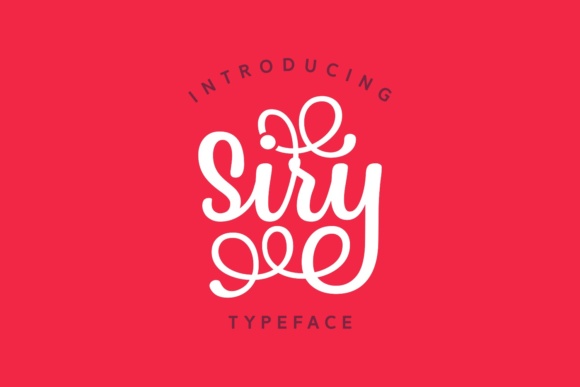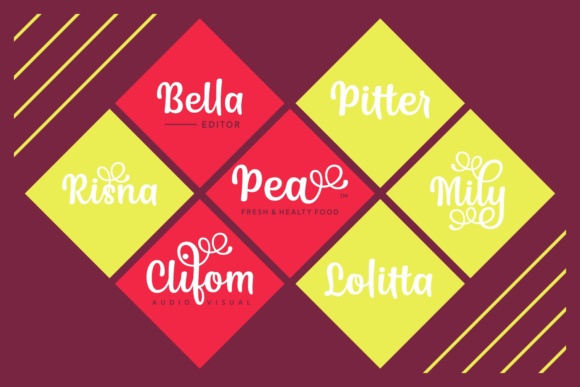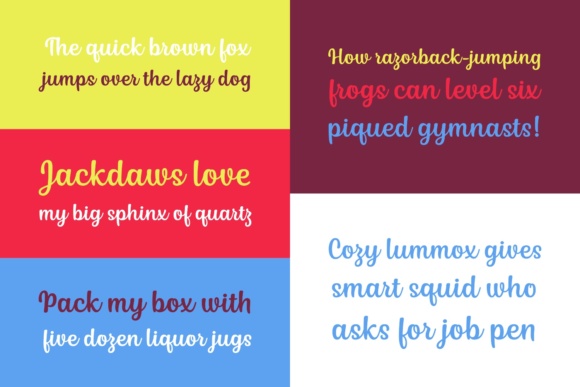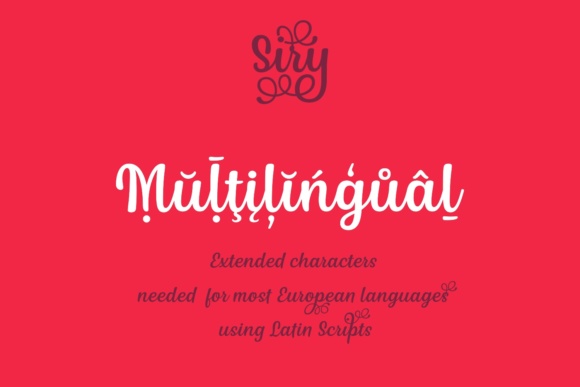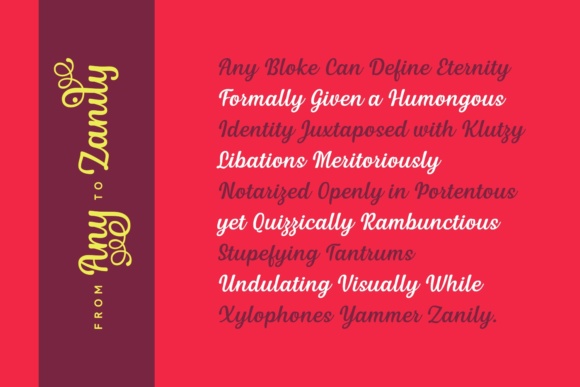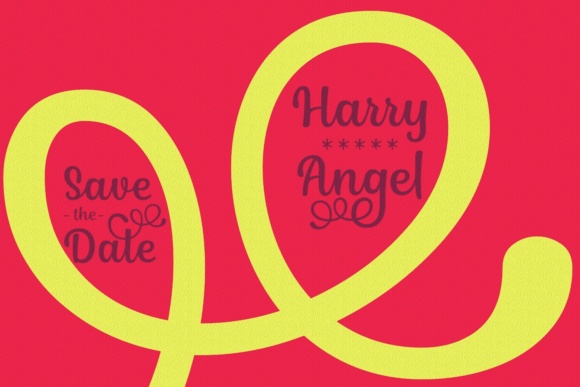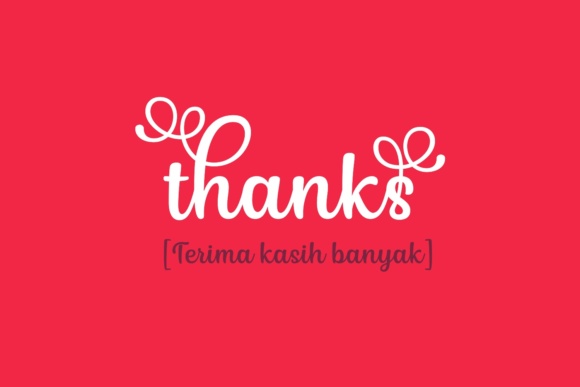
Siry Font
About Siry Font
Siry is a stunning and swirly display script font. This font has a romantic appeal, and works well in designs that need an embellished and girly focal point.